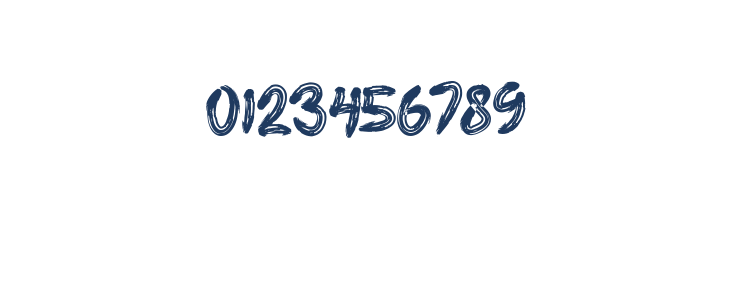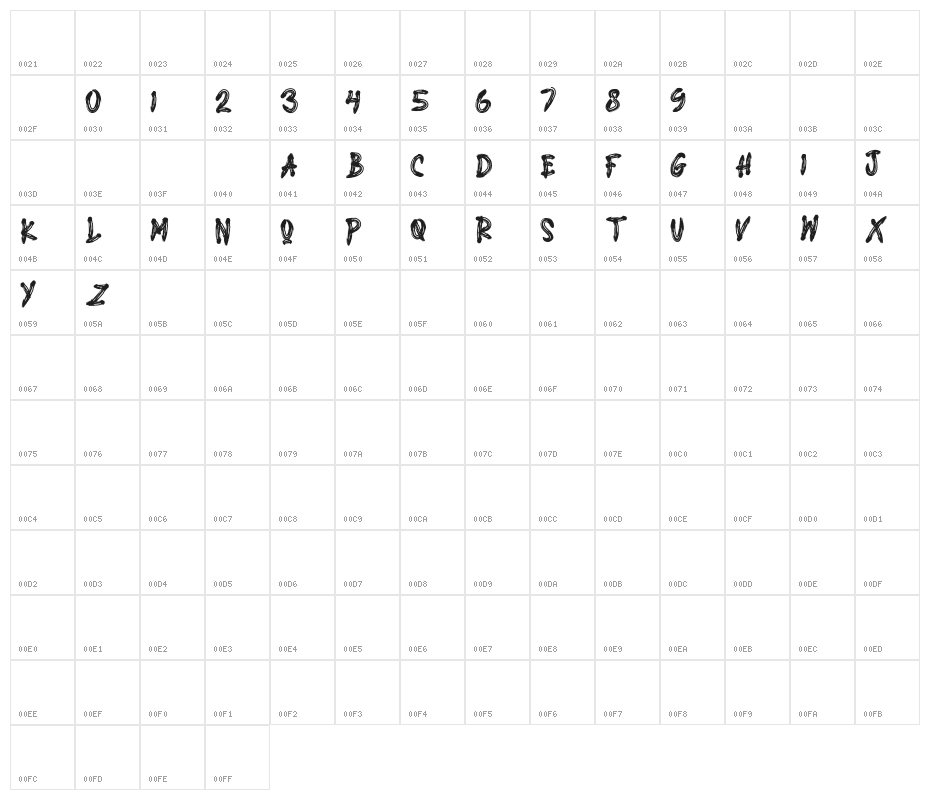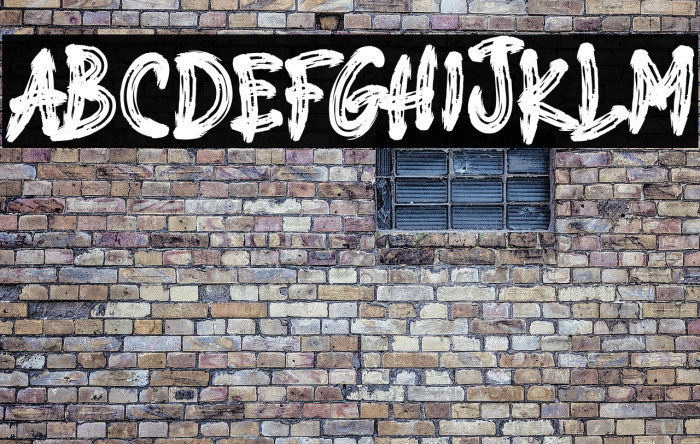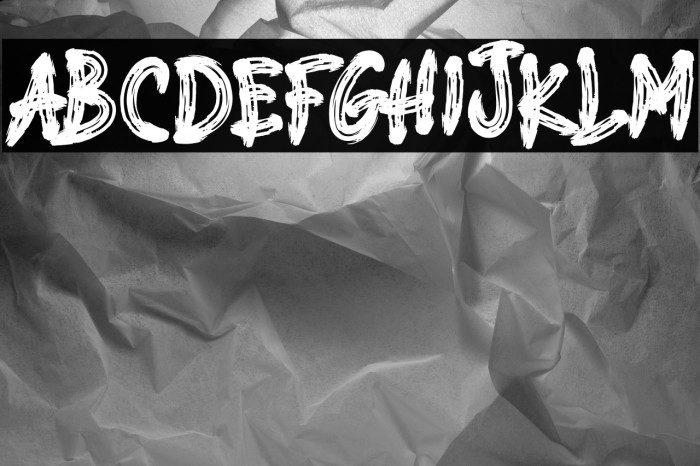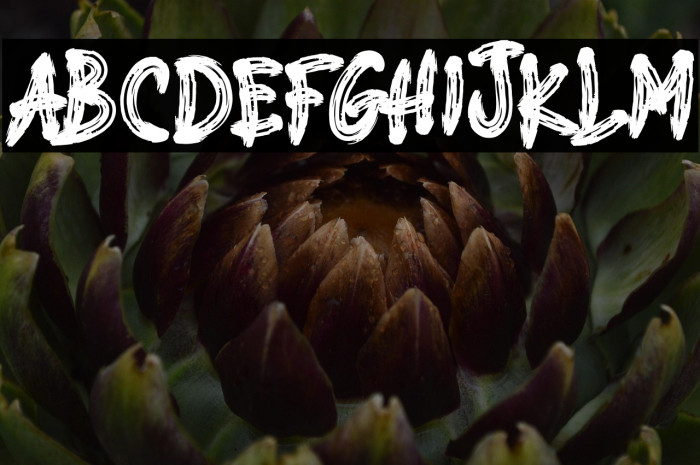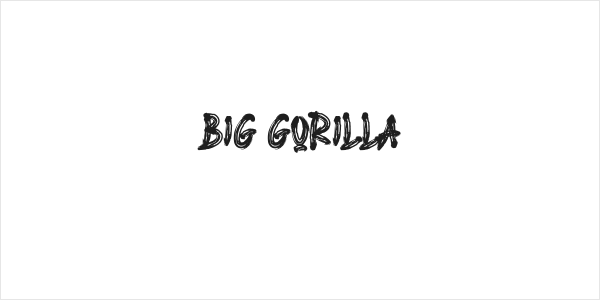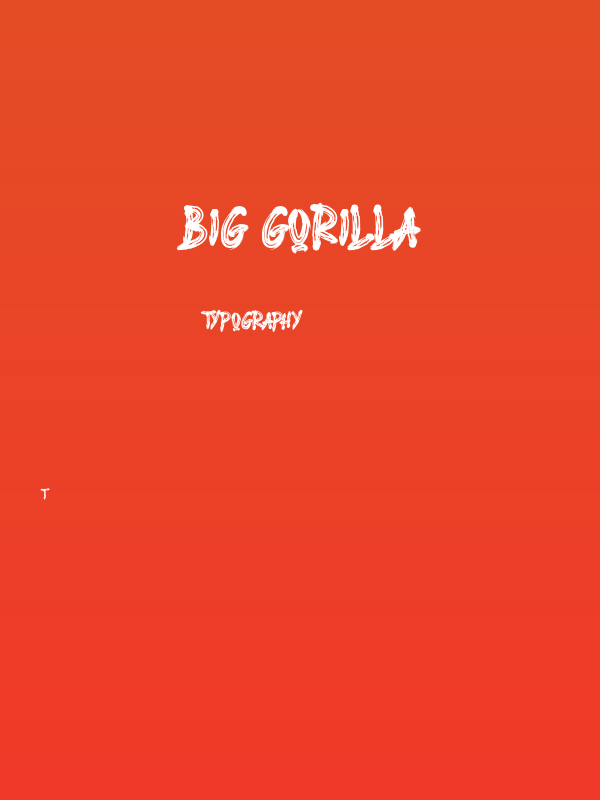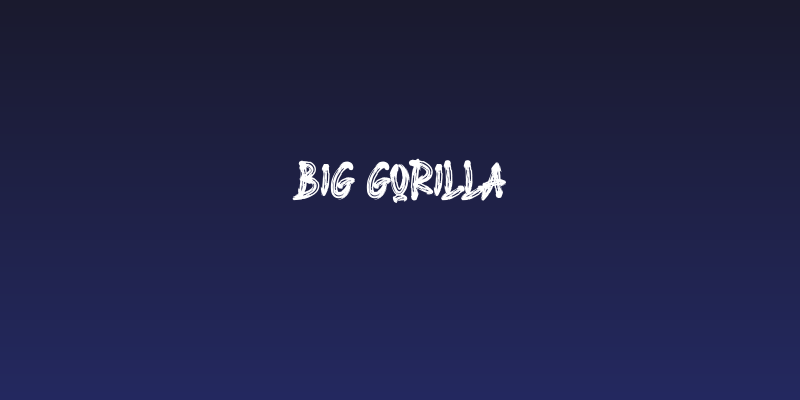
BIG GORILLA Font
BIG GORILLA Description
This font features a bold and expressive style, with each character appearing as if it has been painted with a brush. The strokes are thick and uneven, giving it a dynamic and energetic feel. The uppercase letters are particularly striking, with a sense of movement and flair. The numbers follow the same artistic style, maintaining consistency throughout the set. This font is ideal for projects that require a strong visual impact and a creative touch. Its unique appearance makes it suitable for artistic and unconventional designs.
| Use Case | Headlines, Logos, Artistic designs |
| Proposed Projects | Ideal for posters, album covers, graffiti art, and creative branding projects. |